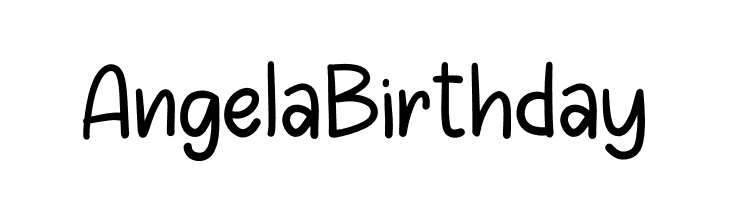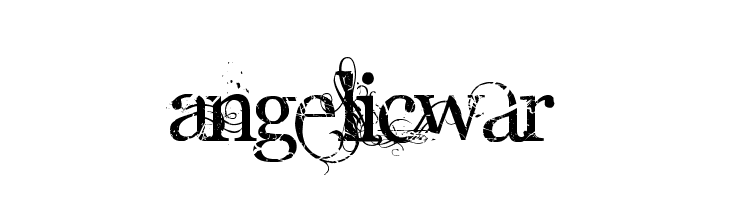
Playful handwritten font with rounded edges.
A graceful, cursive font with elegant, flowing strokes and artistic flourishes.
Casual handwritten font with a friendly style.
A modern, cursive font with bold, expressive strokes and elegant flourishes.
An elegant, flowing script font with ornate swashes and italic styling.
An ornate, bold, and italicized decorative font with elegant flourishes.
An elegant, flowing script font with graceful loops and cursive strokes.
A playful, handwritten font with bold, rounded strokes and a casual style.
A modern, geometric font with sharp angles and clean lines, ideal for display use.
A modern, italic font with sleek, angular characters and a dynamic style.